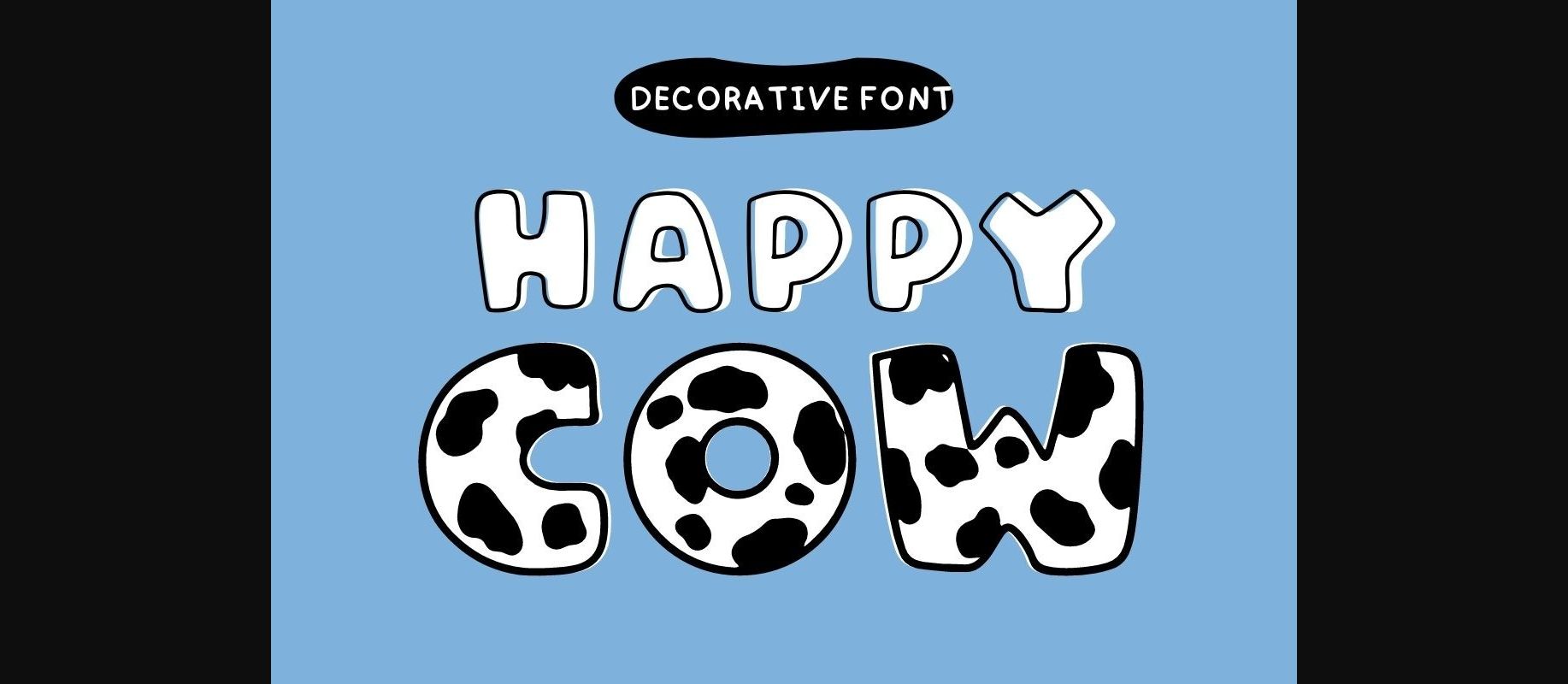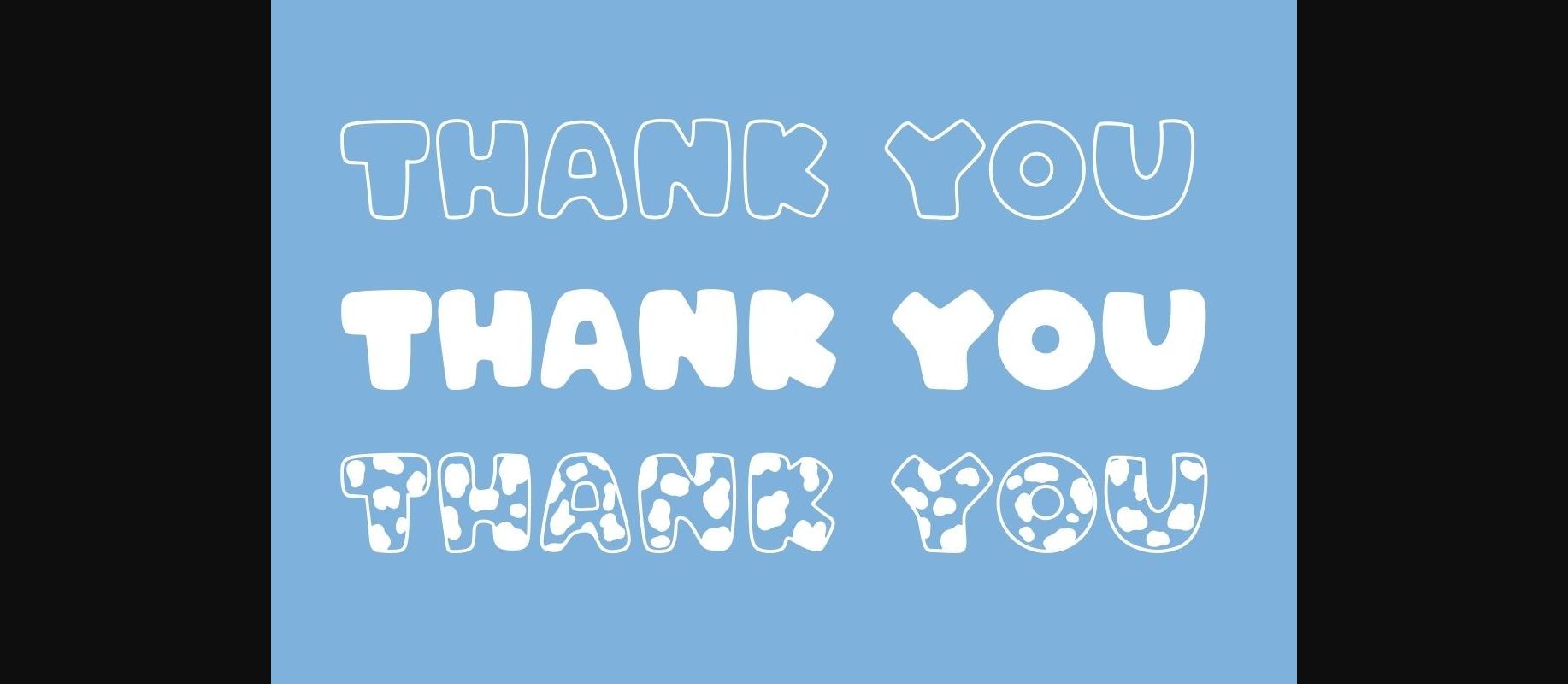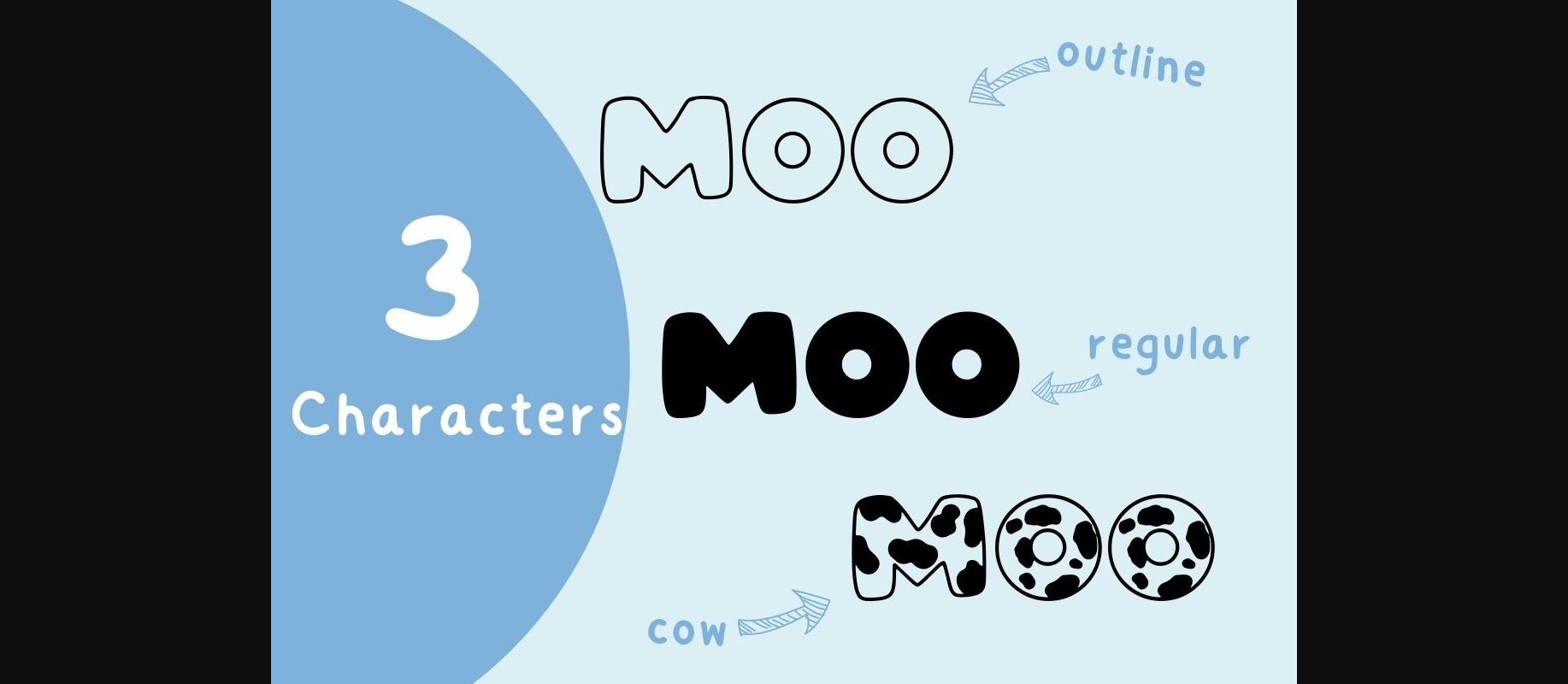
About Happy Cow Font
Happy cow is a cute and fun, bold and friendly decorative font, Whether you are using it for cartoon-related designs, children’s games, quotes, titles, brand names, book covers, posters, or just any creation that requires a touch of beauty, this font is a great choice.